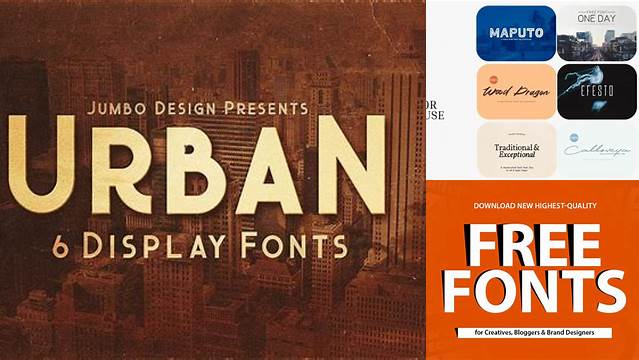
Free Urban Fonts For Commercial Use: A Designer's Guide
Are you on the lookout for urban fonts that you can freely use for your commercial projects? You've landed in the right spot! In today's design landscape, typography plays a crucial role in shaping the visual identity of brands and projects. Finding the perfect font can be a game-changer, and when that font comes with a free commercial license, it's like hitting the jackpot. Let's dive into the world of urban fonts and explore how you can leverage them without breaking the bank.
Understanding Urban Fonts
First off, what exactly are urban fonts? Generally, these fonts evoke a sense of modernity, edginess, and the vibe of city life. Think graffiti styles, industrial aesthetics, and bold, impactful designs. Urban fonts are often characterized by their unique letterforms, which can range from sharp and angular to rounded and playful. They're the go-to choice for projects aiming to capture a contemporary, street-style feel. When choosing fonts for a project, it’s critical to understand the nuances of each typeface. Urban fonts are more than just stylish characters; they’re a powerful communication tool. Their edgy, contemporary designs make them perfect for conveying a modern, street-style aesthetic. Whether you’re working on a poster, logo, or website, the right urban font can instantly grab attention and set the tone. Think about the message you want to send. Is it bold and impactful? Or perhaps more playful and edgy? The font you select should align perfectly with your vision. For instance, a graffiti-style font might be ideal for a hip-hop event poster, while a sleek, sans-serif urban font could be better suited for a tech startup’s website. The versatility of urban fonts lies in their ability to adapt to various design needs while maintaining a distinct urban flair. These fonts often feature unique letterforms that break away from traditional typography, incorporating elements of street art, industrial design, and modern architecture. This makes them a fantastic choice for projects that aim to stand out and make a statement. Furthermore, the visual impact of urban fonts extends beyond mere aesthetics. They can influence the reader's perception of the brand or message, evoking feelings of innovation, energy, and authenticity. When used effectively, these fonts can create a strong connection with the target audience, enhancing brand recognition and engagement. Therefore, selecting the appropriate urban font requires careful consideration of the overall design context and the desired emotional response. By understanding the specific characteristics and applications of different urban fonts, designers can unlock their full potential and create visually compelling and effective communication.
Tips for Using Urban Fonts Effectively
Okay, you've found some fantastic urban fonts – now what? Here are a few tips to make the most of them:
- Consider Legibility: While urban fonts are stylish, ensure they're still readable, especially in body text. Opt for cleaner urban fonts for longer passages.
- Pair Wisely: Combine urban fonts with simpler typefaces for balance. A bold urban font for headings can be paired with a classic sans-serif for body text.
- Use Sparingly: Urban fonts often have a strong personality, so use them strategically to make a statement without overwhelming the design.
- Test on Different Devices: Make sure your chosen font looks good across various screens and devices.
Effectively using urban fonts involves a delicate balance between style and functionality. While these fonts are known for their bold and edgy designs, legibility should always be a top priority. A font that looks striking in a headline might become a visual mess when used in body text. Therefore, it’s crucial to choose fonts that maintain readability, especially in longer passages. When selecting an urban font, consider the context in which it will be used. For instance, a graffiti-style font might be perfect for a poster or a logo, but it’s likely to be too distracting for a website’s main content. In such cases, opting for cleaner, more streamlined urban fonts can be a better choice. These fonts often feature simple geometric shapes and clear letterforms, making them easier to read while still conveying a modern aesthetic. Pairing fonts wisely is another key aspect of effective typography. Combining an urban font with a simpler typeface can create a visually appealing contrast and enhance the overall design. For example, a bold urban font used for headings can be paired with a classic sans-serif font for body text. This approach allows the headline to stand out while ensuring that the main content remains easy to read. Conversely, pairing two highly stylized fonts can often lead to a cluttered and overwhelming design. The principle of “less is more” applies strongly when working with urban fonts. Due to their strong personality and visual impact, these fonts are best used sparingly. Overusing them can dilute their effect and make your design look amateurish. Instead, use them strategically to highlight key elements and create a visual hierarchy. This approach allows the urban font to make a statement without overpowering the rest of the design. Testing your chosen font across different devices and screen sizes is an essential step in the design process. A font that looks great on your computer screen might appear distorted or illegible on a mobile device. Therefore, it’s crucial to preview your design on various platforms to ensure that the font renders correctly and maintains its legibility. This can involve checking the font on different browsers, operating systems, and screen resolutions. By paying attention to these details, you can ensure that your design looks polished and professional, regardless of how it’s viewed. In conclusion, mastering the art of using urban fonts effectively requires careful consideration of legibility, font pairing, usage frequency, and device compatibility. By following these tips, you can harness the power of urban fonts to create visually stunning designs that resonate with your audience.
Staying Updated with Font Trends
The world of typography is constantly evolving, so it's a good idea to stay updated on the latest trends. Following design blogs, social media accounts, and font foundries can give you insights into emerging urban font styles and techniques. This will help you keep your designs fresh and relevant. Keeping abreast of font trends is crucial for designers who want to maintain a competitive edge and create designs that resonate with contemporary audiences. The landscape of typography is dynamic, with new styles, techniques, and technologies constantly emerging. By staying informed about these developments, designers can ensure that their work remains fresh, relevant, and visually compelling. One of the most effective ways to stay updated with font trends is to follow design blogs and industry publications. These resources often feature articles, interviews, and tutorials that highlight the latest trends in typography, as well as showcase innovative font designs and applications. By regularly reading these publications, designers can gain valuable insights into the current preferences and directions of the design community. Social media platforms are another valuable tool for staying informed about font trends. Platforms like Instagram, Pinterest, and Behance are hubs for designers to share their work and discover new fonts. Following leading designers, font foundries, and design agencies can provide a steady stream of inspiration and information about emerging styles. Engaging with the design community on social media also allows designers to participate in discussions, exchange ideas, and receive feedback on their own work. Font foundries themselves are a primary source of information about font trends. Many foundries maintain blogs and newsletters that feature their latest releases, as well as discuss the broader trends in typography. By subscribing to these resources, designers can gain direct access to the expertise of font creators and learn about the design decisions behind new typefaces. Attending design conferences and workshops is another excellent way to stay updated with font trends. These events bring together designers, typographers, and industry experts, providing opportunities to network, learn from presentations and workshops, and discover new fonts and tools. Conferences often feature sessions dedicated to typography, where speakers share their insights into the latest trends and techniques. Experimenting with new fonts and techniques is essential for designers who want to push the boundaries of their creativity. By actively exploring different styles and applications, designers can develop their own unique voice and contribute to the evolution of typography. This might involve trying out unconventional font pairings, incorporating typography into new media, or developing custom typefaces for specific projects. In conclusion, staying updated with font trends requires a proactive approach that involves engaging with design blogs, social media, font foundries, and industry events. By continuously learning and experimenting, designers can ensure that their work remains innovative and impactful, and that they are well-equipped to meet the evolving needs of their clients and audiences. The world of typography is constantly evolving, and staying updated on the latest trends is key to maintaining a fresh and relevant design aesthetic.
Finding the perfect urban font for your project doesn't have to be a costly endeavor. With so many free commercial use options available, you can create stunning designs that capture the essence of urban style without breaking the bank. Just remember to check those licenses, pair wisely, and let your creativity shine! So go out there and explore the world of urban fonts – your next design masterpiece awaits!